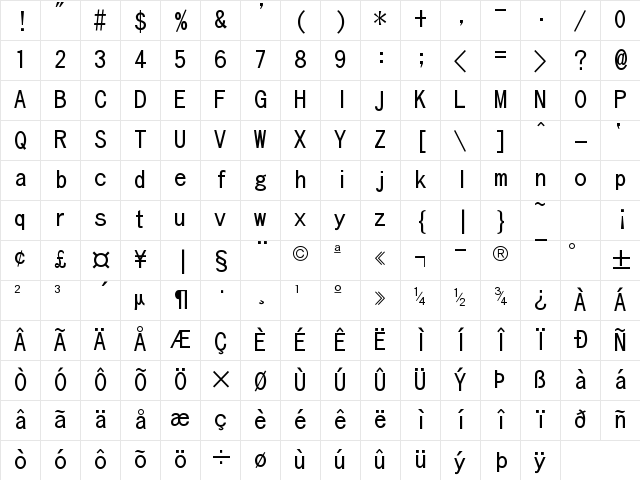
Sazanami Gothic Gothic-Regular
Foundry: Electronic Font Open Laboratory (/efont/)
Designer: Kanji autodesign by CLWFK (Non-kanji glyphs by Yasuyuki Furukawa)
Design Context for Sazanami Gothic
Sazanami Gothic takes a clean, functional approach - its unadorned letterforms prioritise legibility and work reliably across screen and print environments.
Font Pairing: Works well alongside a characterful serif or display font that can carry the expressive load while Sazanami Gothic handles the functional copy.
Pro Tip: Use Sazanami Gothic for UI labels, navigation, and short-form body copy where clean legibility is the priority.